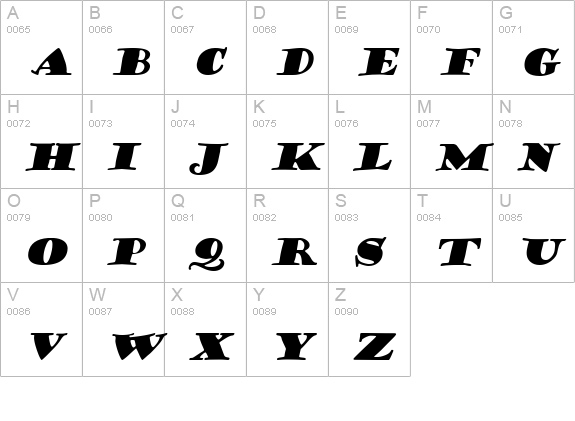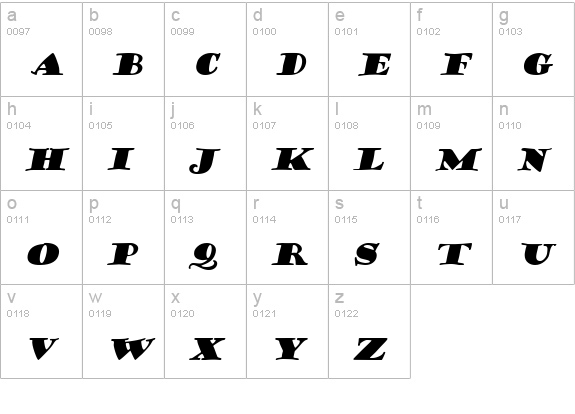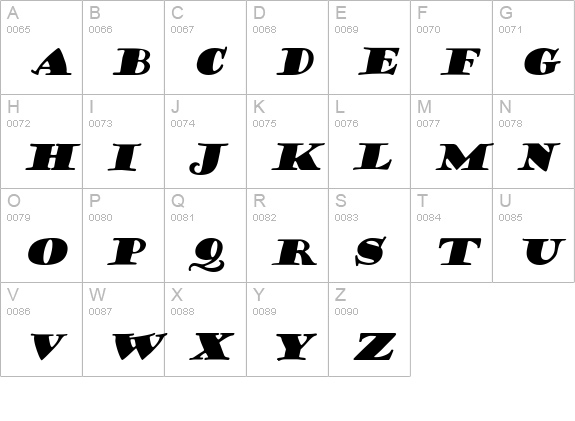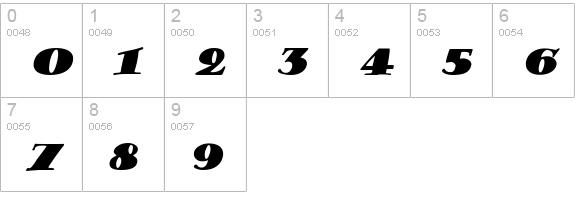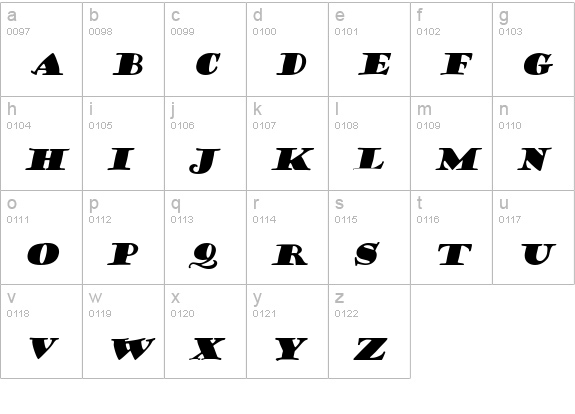
CoffeeSack Italic is a distinctive, italic variant in the CoffeeSack typeface family \xE2\x80\x94 well suited to design and typography projects.
CoffeeSack Italic font is a stylish and versatile typeface that exudes a sense of sophistication and charm. With its elegant curves and unique design, this font is perfect for adding a touch of class to any project. The italicized style adds a sense of dynamism and flair, making it ideal for both formal and creative applications. What sets CoffeeSack Italic font apart is not only its stunning aesthetic appeal but also the fact that it is available for free download at FontsMarket.com. This means that you can easily access this premium-quality font without any cost, making it a valuable addition to your font library. Whether you're working on a branding project, designing invitations, or creating social media graphics, CoffeeSack Italic font will elevate your designs and leave a lasting impression. Embrace the beauty and versatility of this font today and take your projects to the next level.